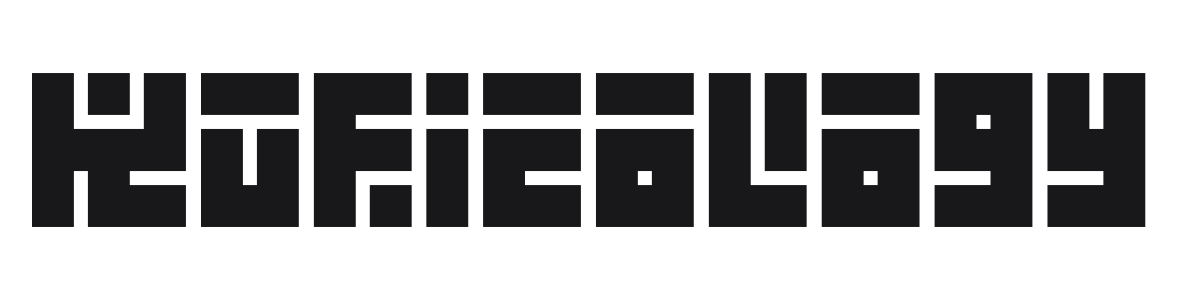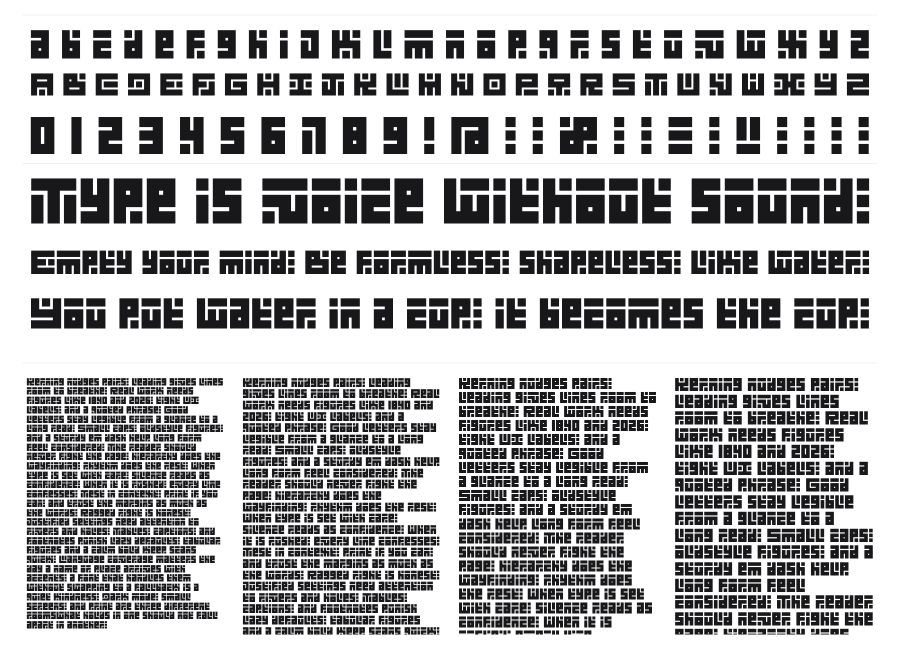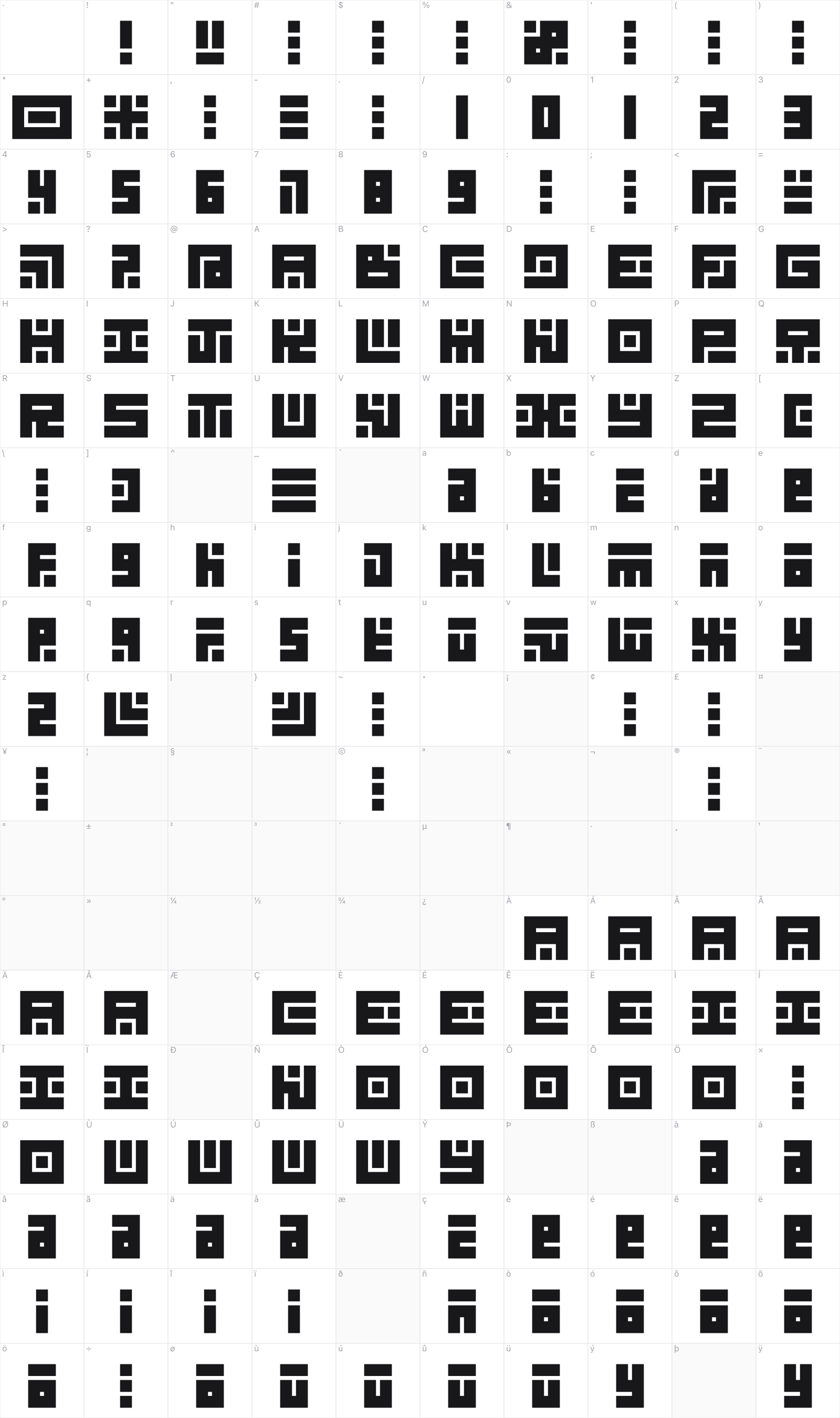
Kuficology
Kuficology is a bold geometric display font that translates the angular grid logic of Kufic Arabic calligraphy into a Latin alphabet. Every character is assembled from square modules with no curves, creating a dense, heavy texture with strong cultural resonance. It works best large, where the modular construction reads as intentional architecture rather than constraint.